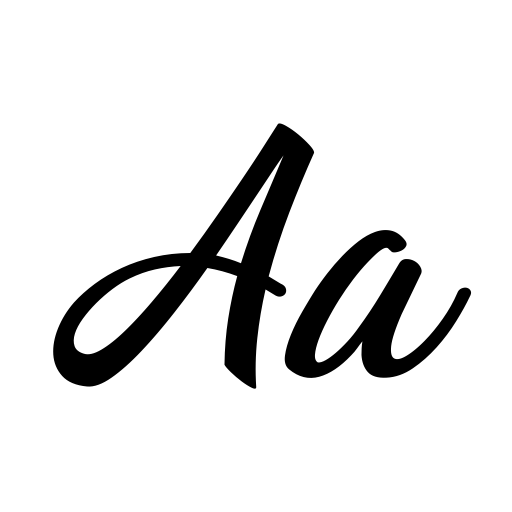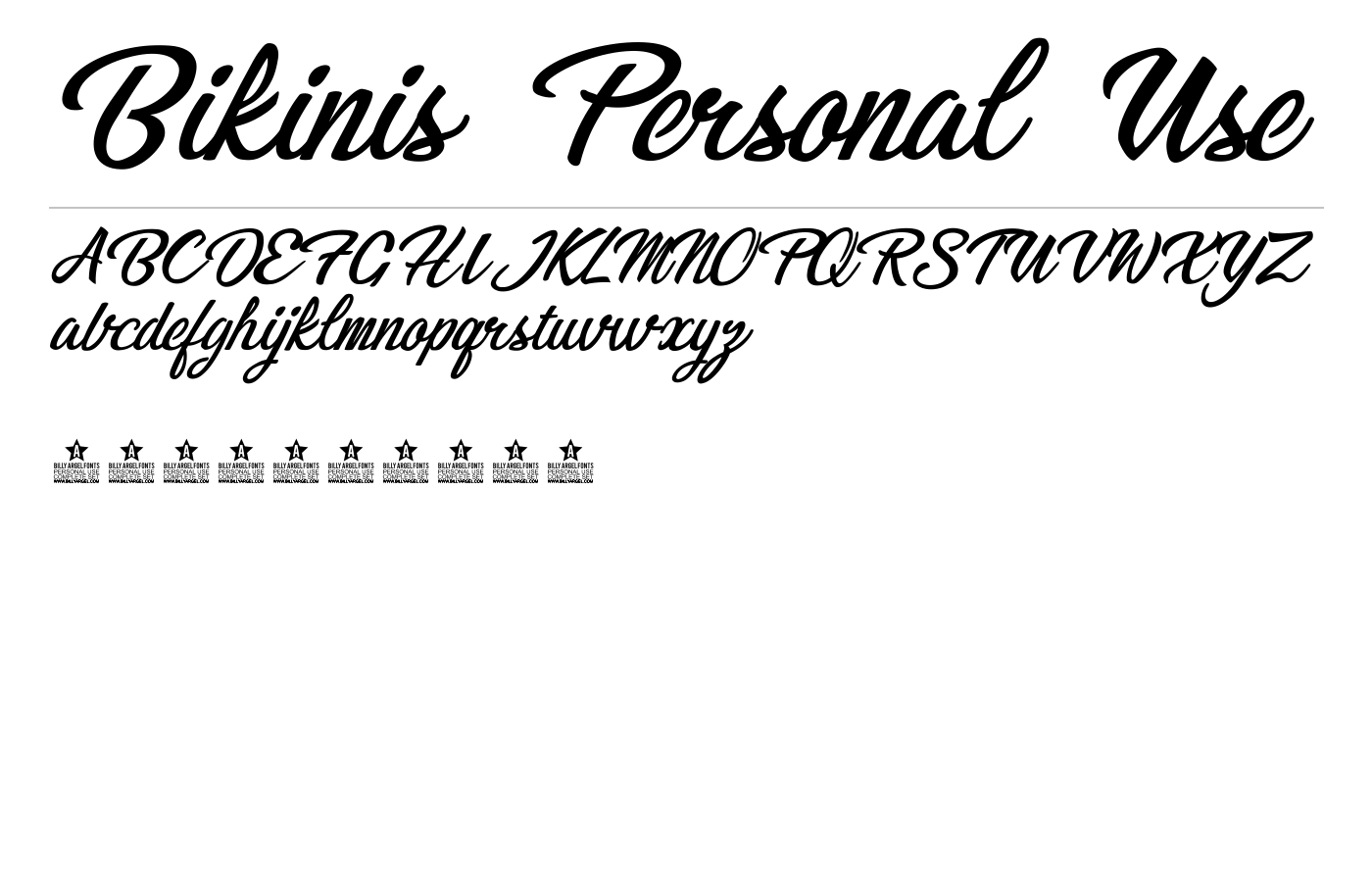
Bikinis Personal Use is a stylish script font with smooth, flowing curves and a friendly, casual vibe. Its balanced weight and clear letterforms make it perfect for adding a personal, handwritten touch to invitations, branding, and creative projects. This font works well where a warm, approachable yet refined feel is desired.
Bikinis Personal Use Font
About Bikinis Personal Use Font
| Font family | Bikinis Personal Use Font |